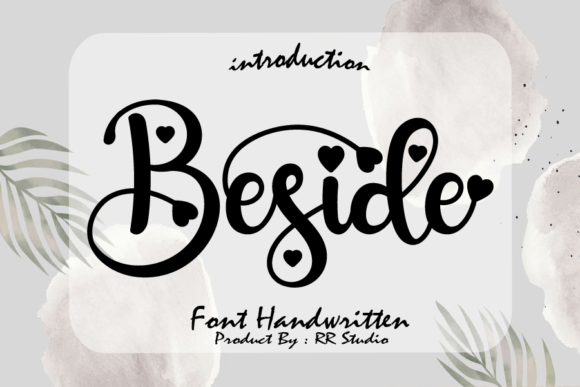
Beside Font
About Beside Font
“Beside Font: Dainty and Flowing Handwritten Elegance
Introducing Beside, a dainty and flowing handwritten font that exudes sweetness and joy. Ideal for a variety of design projects, this font is perfect for writing wedding invitations, cards, or any other creations that require a romantic and personalized touch. Beside is not just a font; it’s a design companion that brings a delightful and elegant charm to your creative projects.
The dainty and flowing nature of Beside makes it versatile and suitable for a range of applications. Whether you’re working on a logotype, headlines, corporate identity, brand identity, apparel designs, posters, music covers, movie titles, games, magazines, books, comics, cartoons, YouTube thumbnails, Instagram posts, websites, or any other creative design projects, Beside adapts effortlessly to add a romantic and personalized touch.
For wedding invitations and cards, Beside becomes a stylistic choice, infusing your text with a sense of romance and joy. The font’s flowing elegance is perfect for creating visually appealing and emotionally engaging content.
In corporate and brand identity projects, Beside serves as a distinctive element, contributing to a warm and inviting brand image. Its dainty and flowing handwritten style adds a personal and authentic touch to your design.
Beside’s versatility extends to various digital and print materials, making it a valuable asset for a wide range of creative endeavors. The font’s unique character enhances the overall aesthetics, creating a visually pleasing experience.
In conclusion, Beside is more than just a font; it’s a design companion that brings dainty and flowing handwritten elegance to your creative toolkit. Let Beside be the brushstroke that enhances the beauty of your projects. Embrace the versatility and delightful charm of Beside, and watch as it transforms your ideas into visually enchanting experiences.”